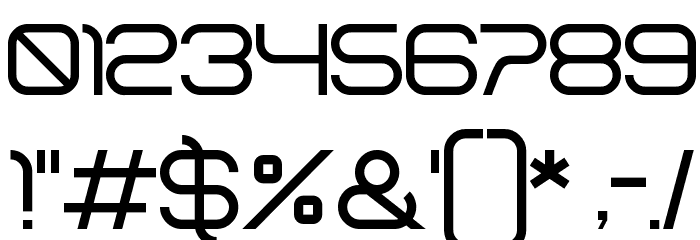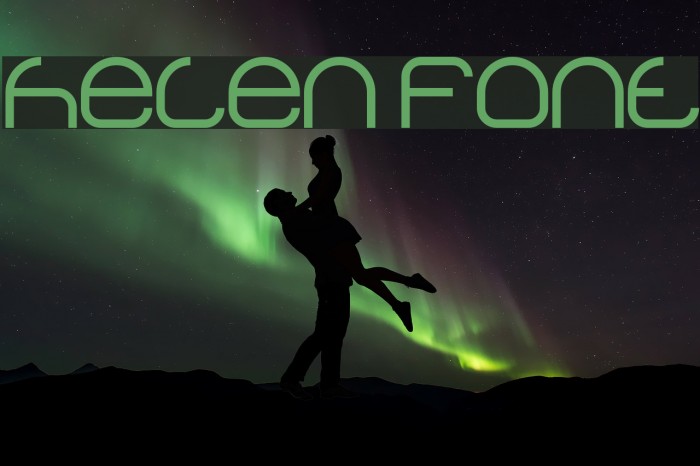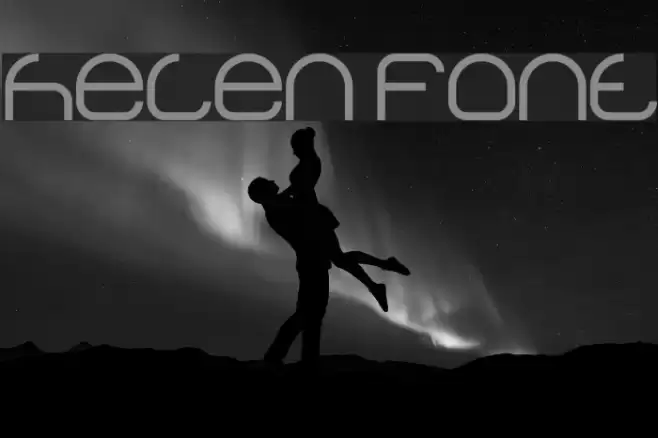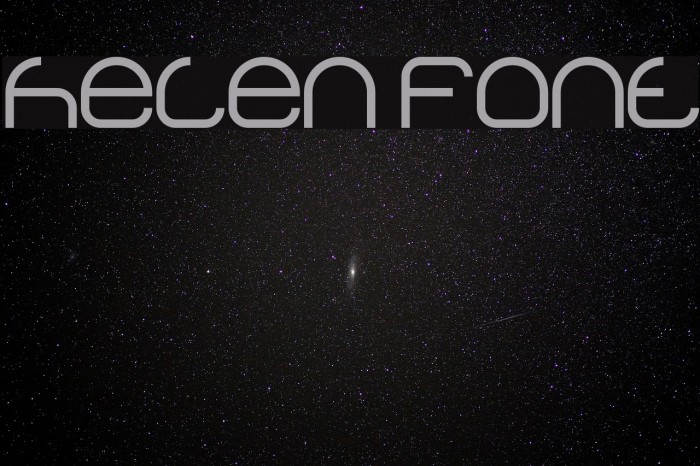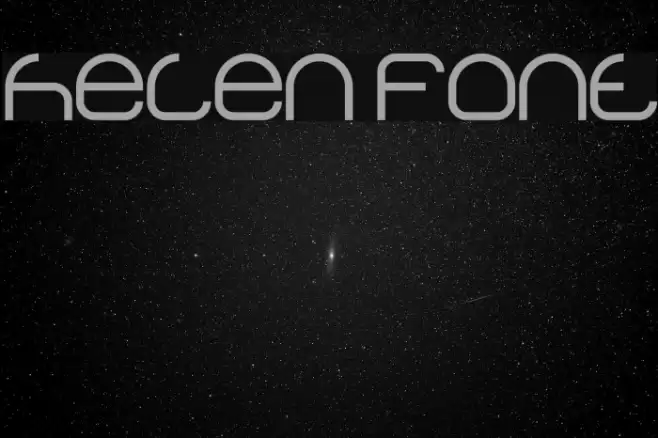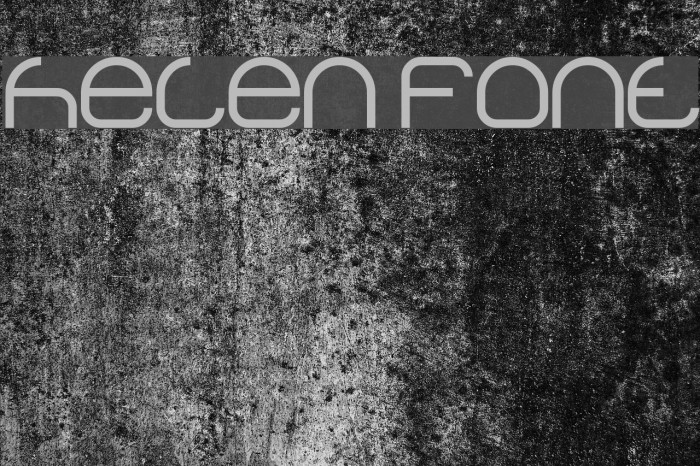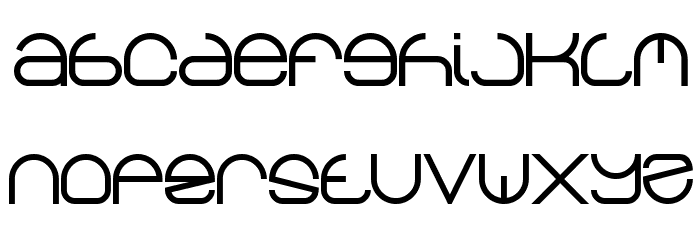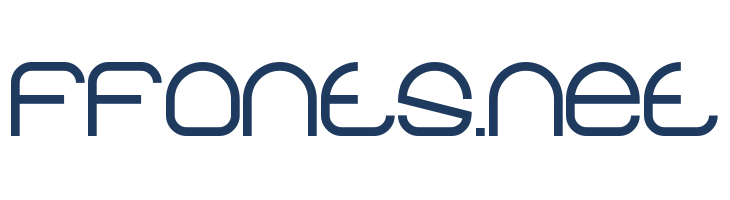
helen Font
helen Description
This font features a modern, futuristic design with a geometric and minimalistic approach. The characters are composed of clean, continuous lines with rounded edges, creating a sleek and streamlined appearance. The uppercase and lowercase letters maintain a consistent style, with a uniform height and width that enhances readability. The numbers and special characters follow the same design principles, ensuring a cohesive look across all elements. The font's unique style makes it suitable for projects that require a contemporary and innovative touch.
| Use Case | Logos, Headlines, Branding |
| Proposed Projects | Ideal for technology branding, sci-fi themed projects, modern advertising, and innovative product packaging. |